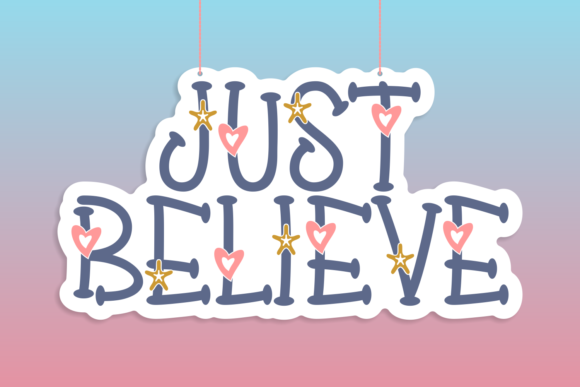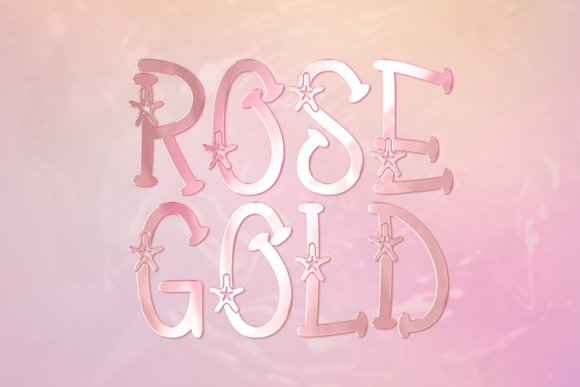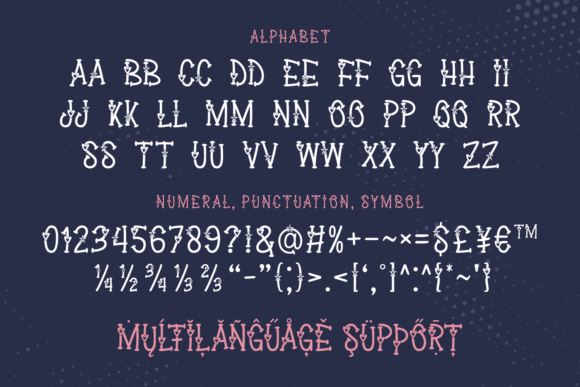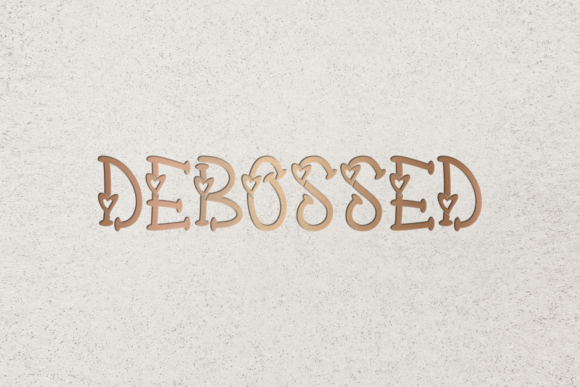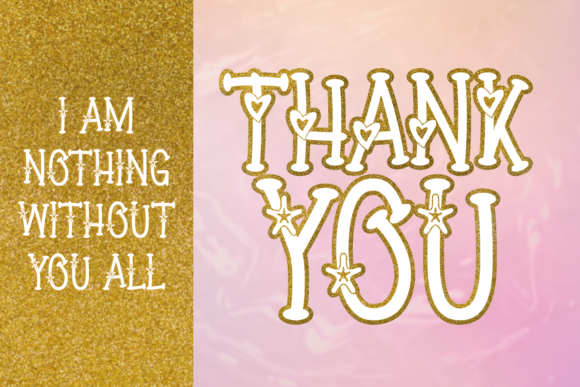
Love Star Dance Font
About Love Star Dance Font
Love Star Dance is a cute, quirky and fun handwritten font. It will look stunning on any food menu, poster, flyer or print.